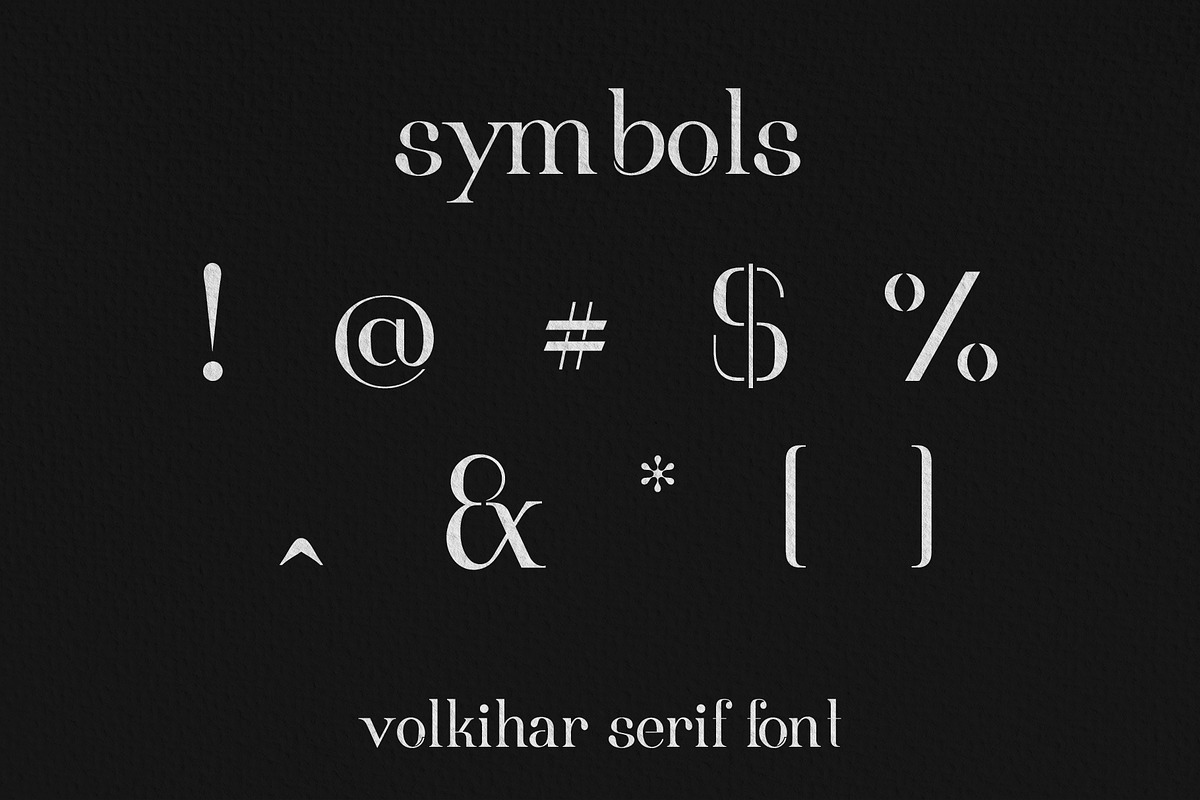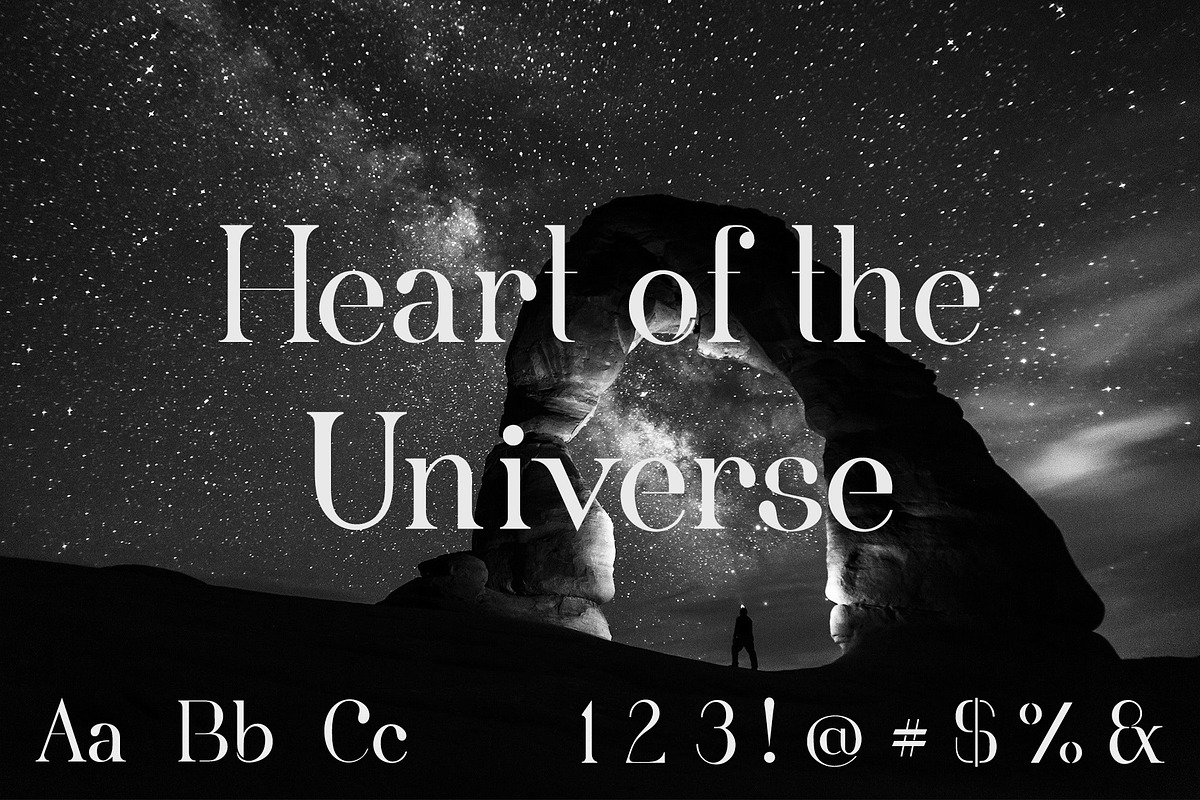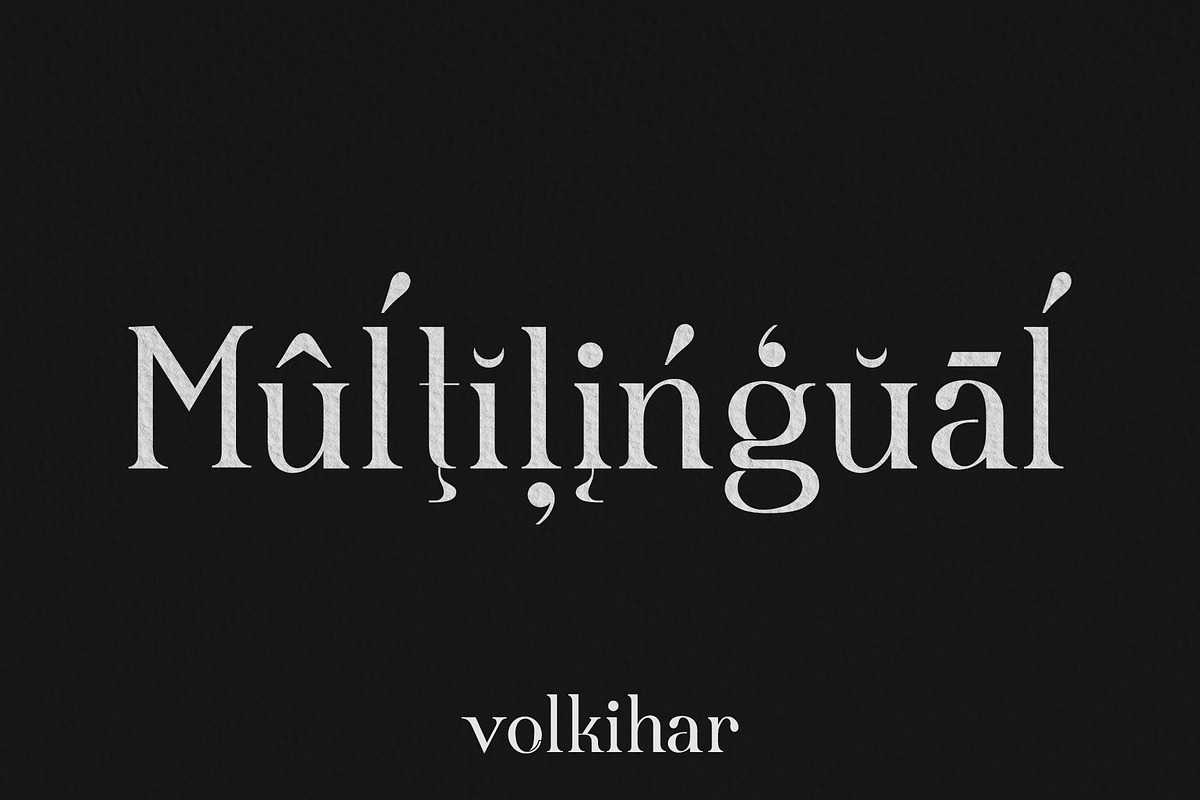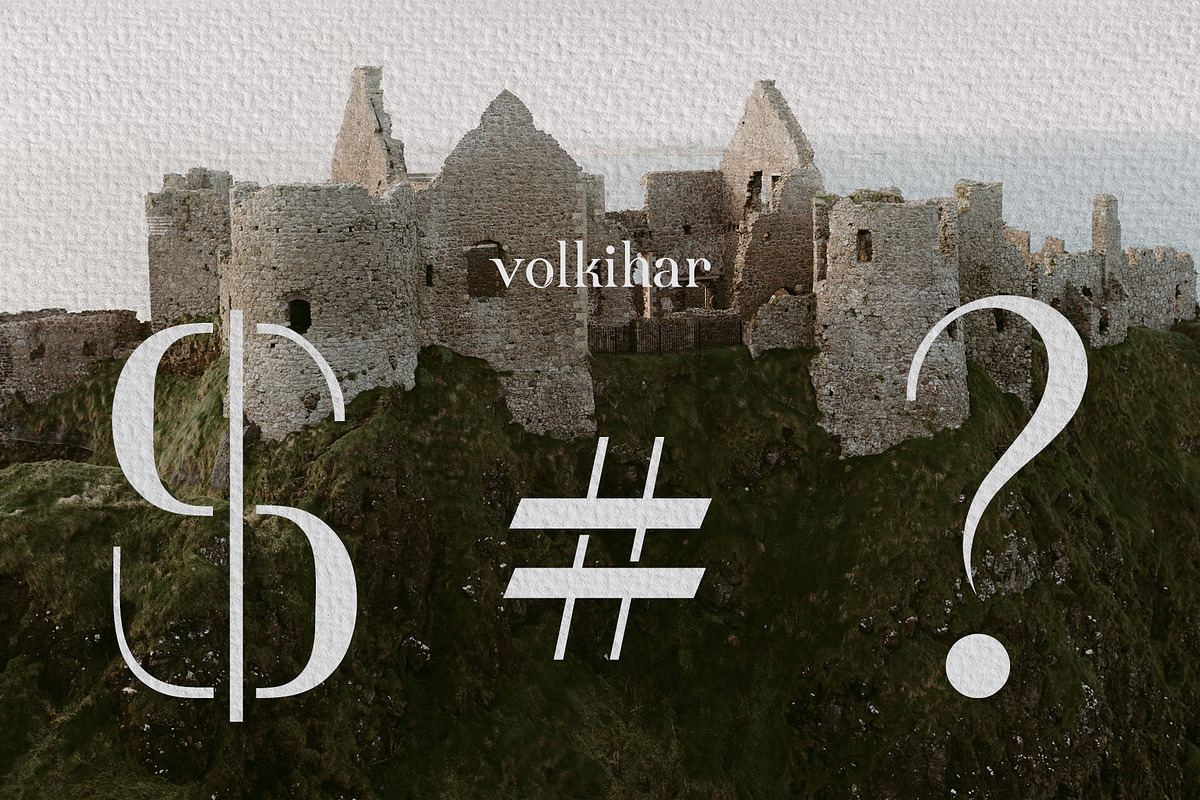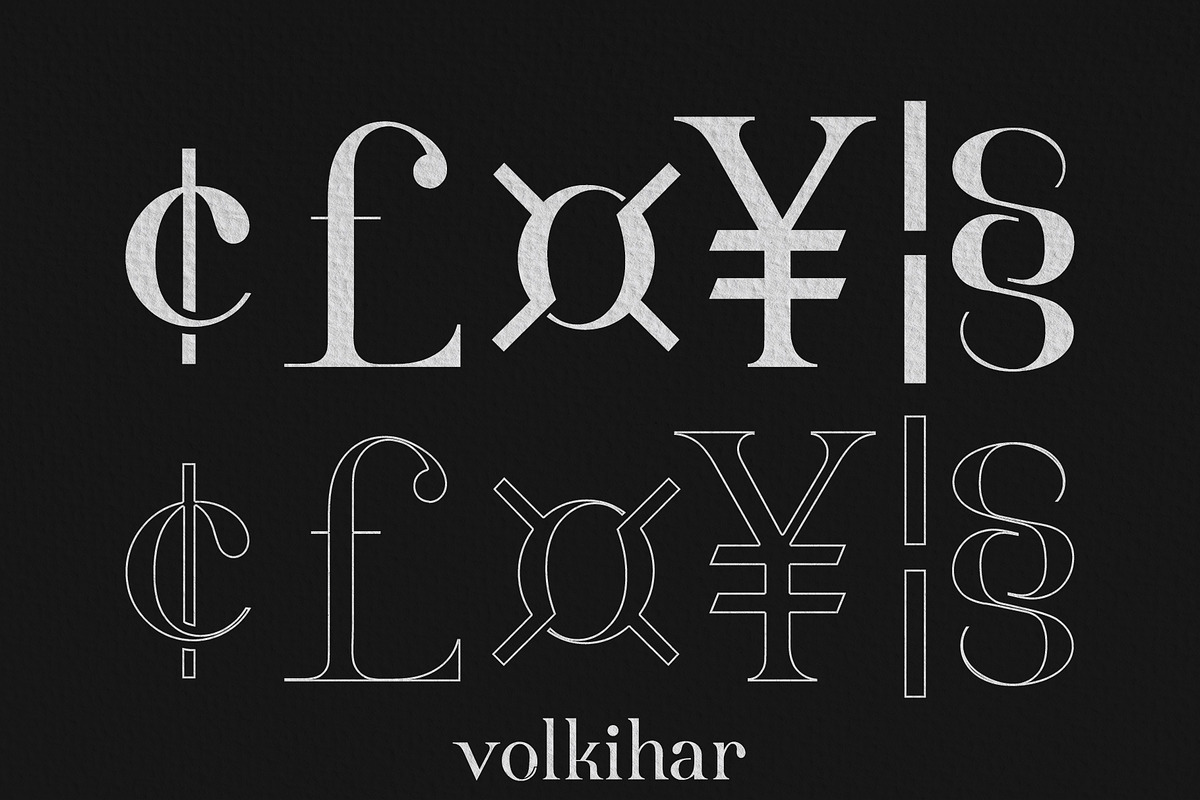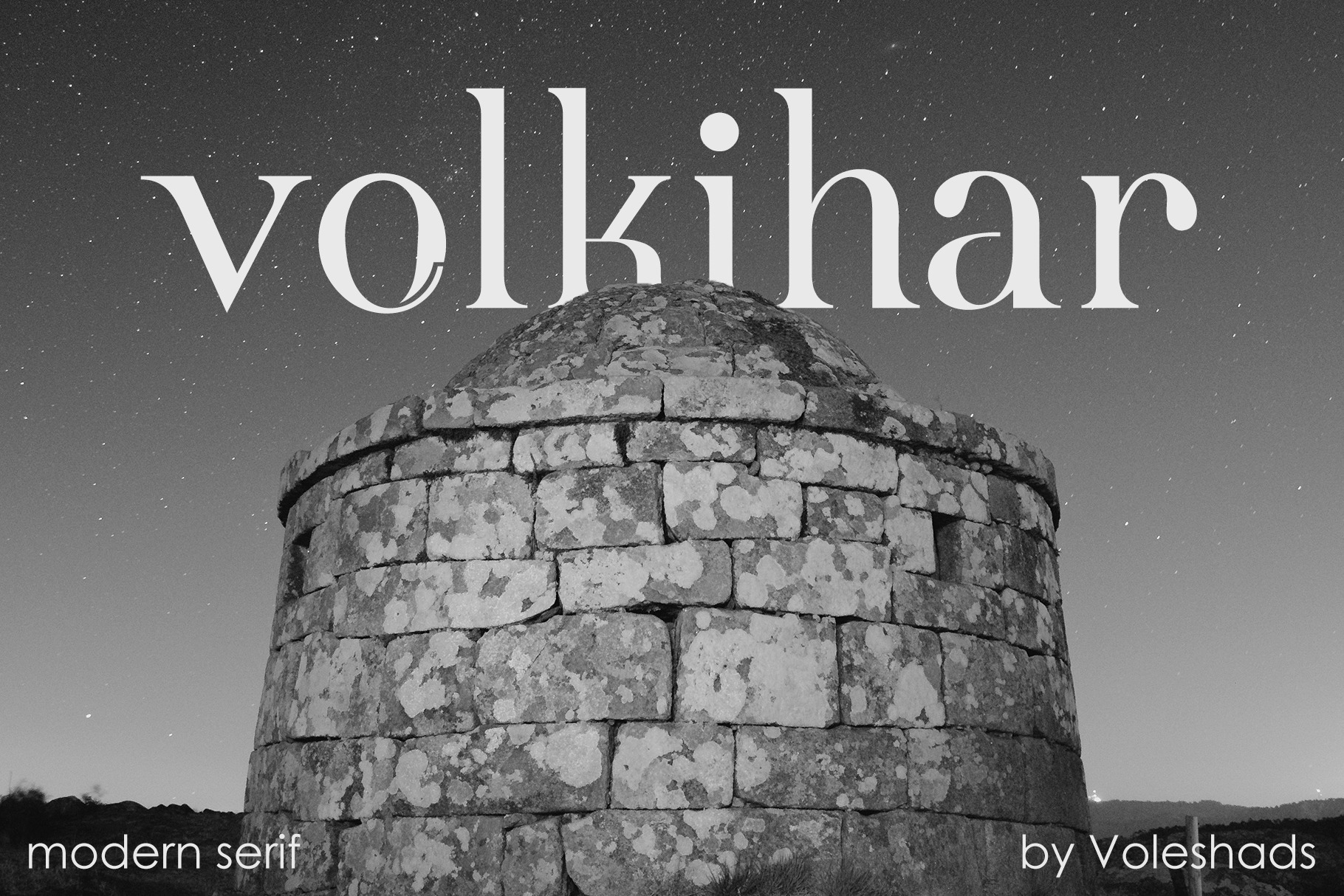
Volkihar | Modern Serif Font
Volkihar is a modern serif typeface with beautiful ligatures, tons of special alternative glyphs, ornament and multilingual support. It's a very versatile font. This font is great for using in magazines, Projects and anywhere where you want elegance to be included.